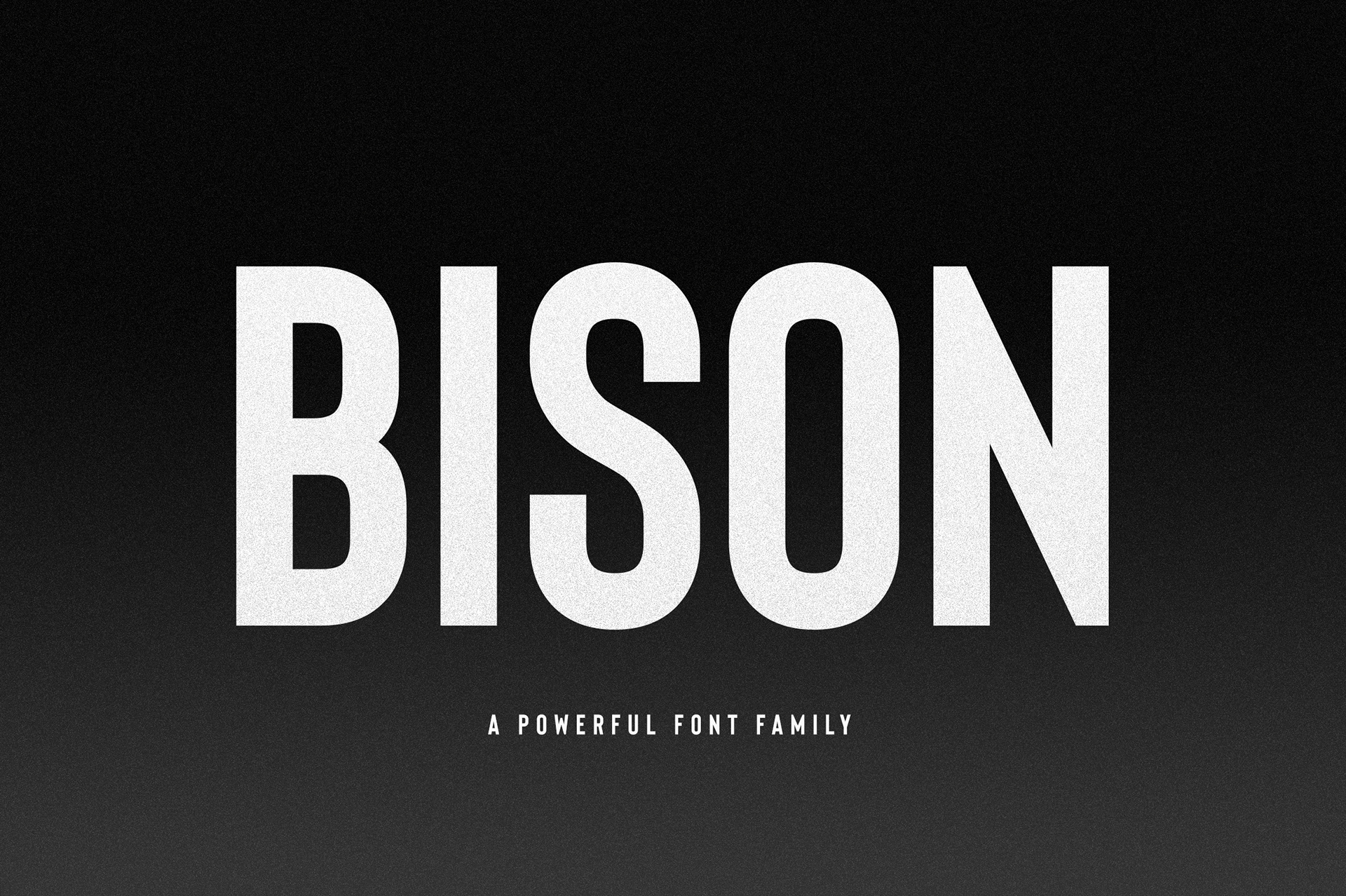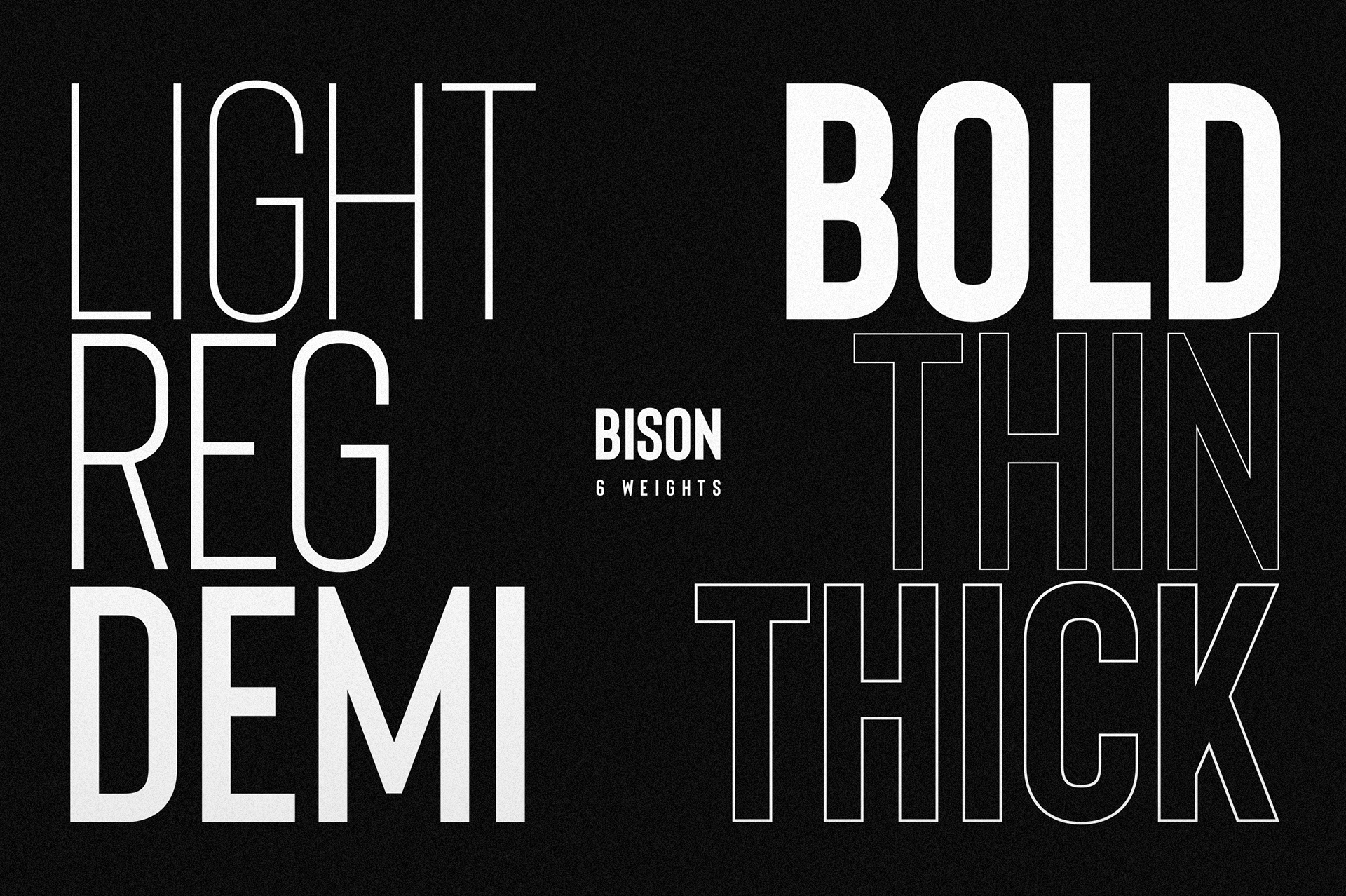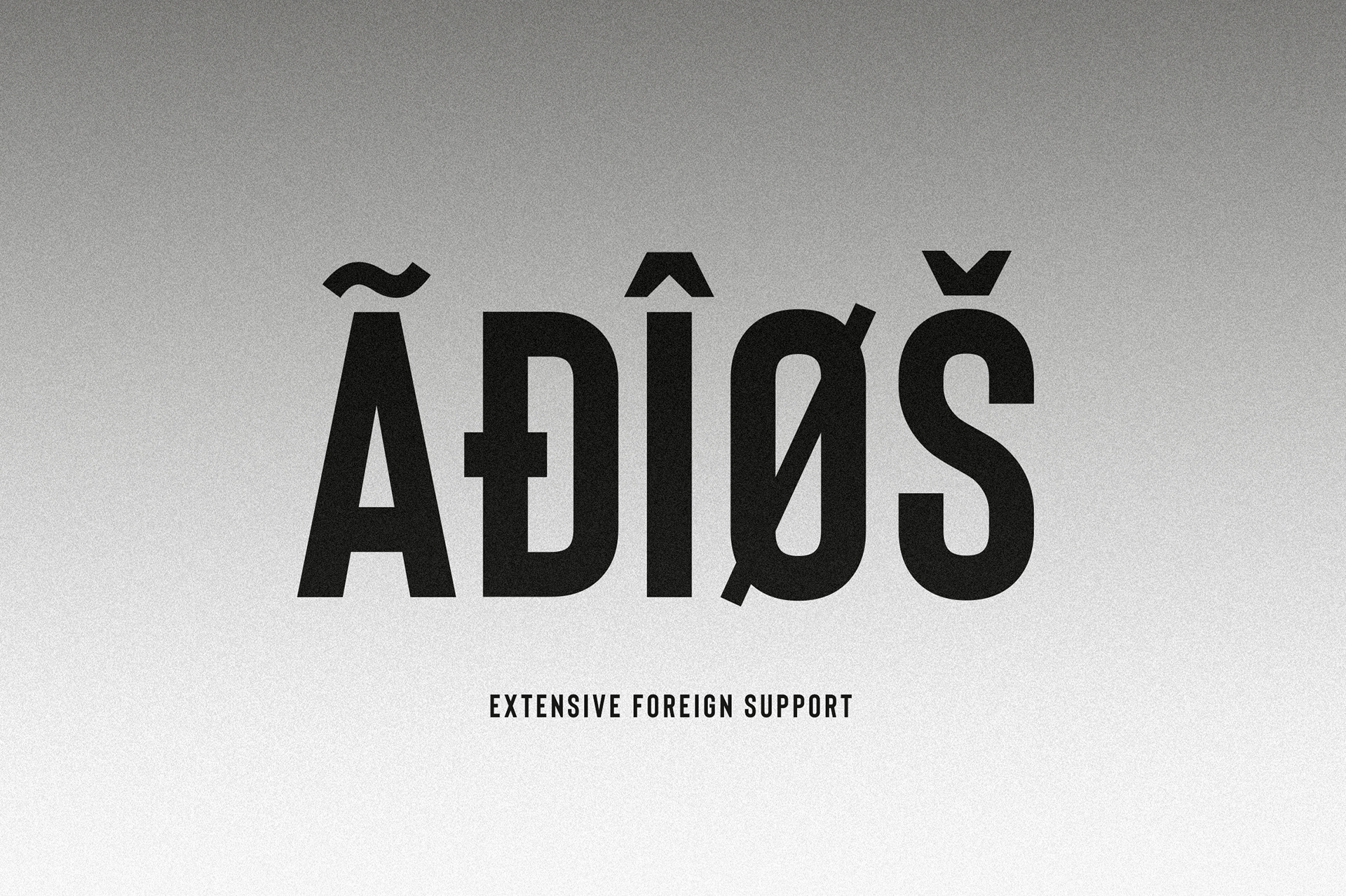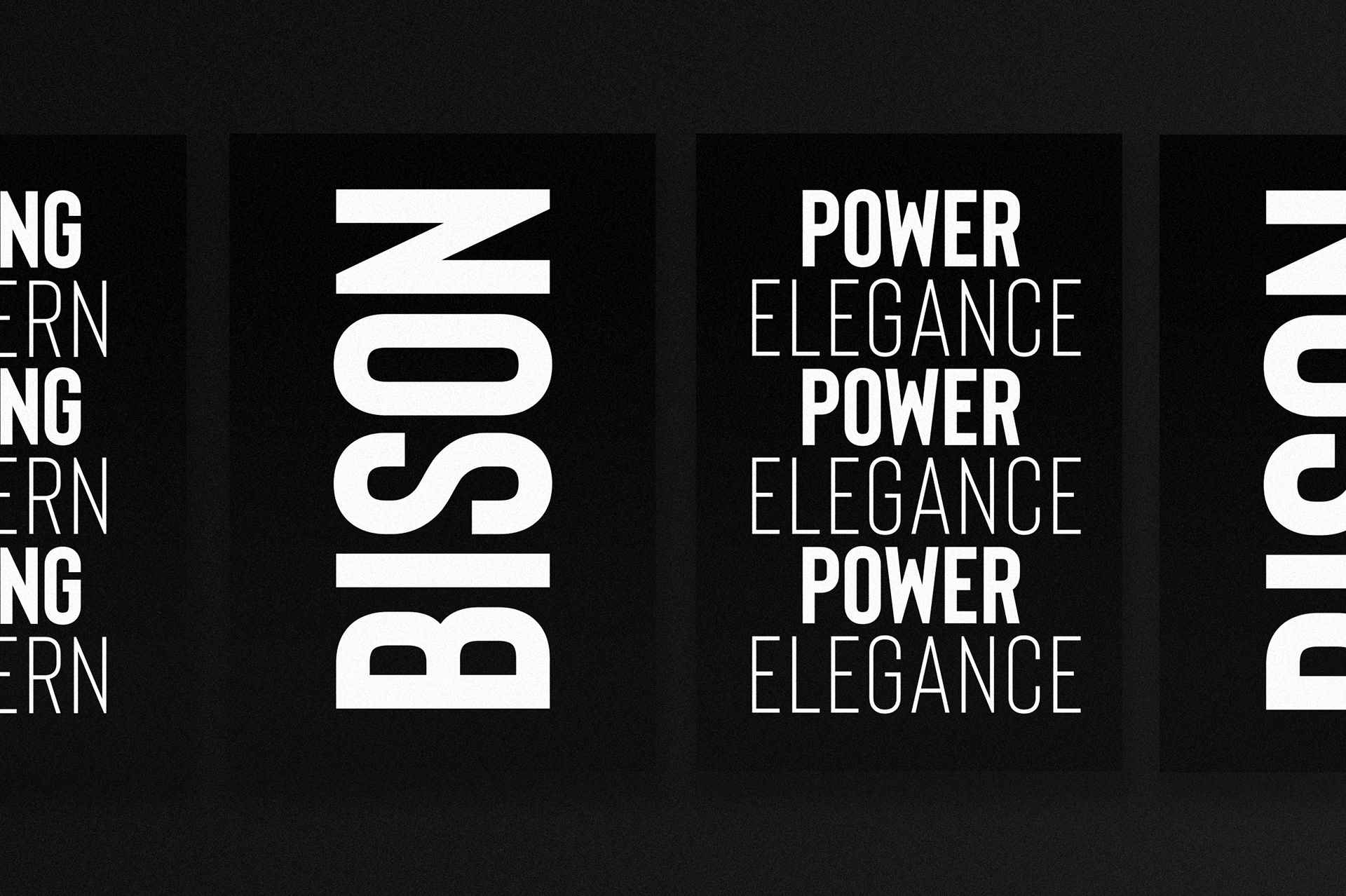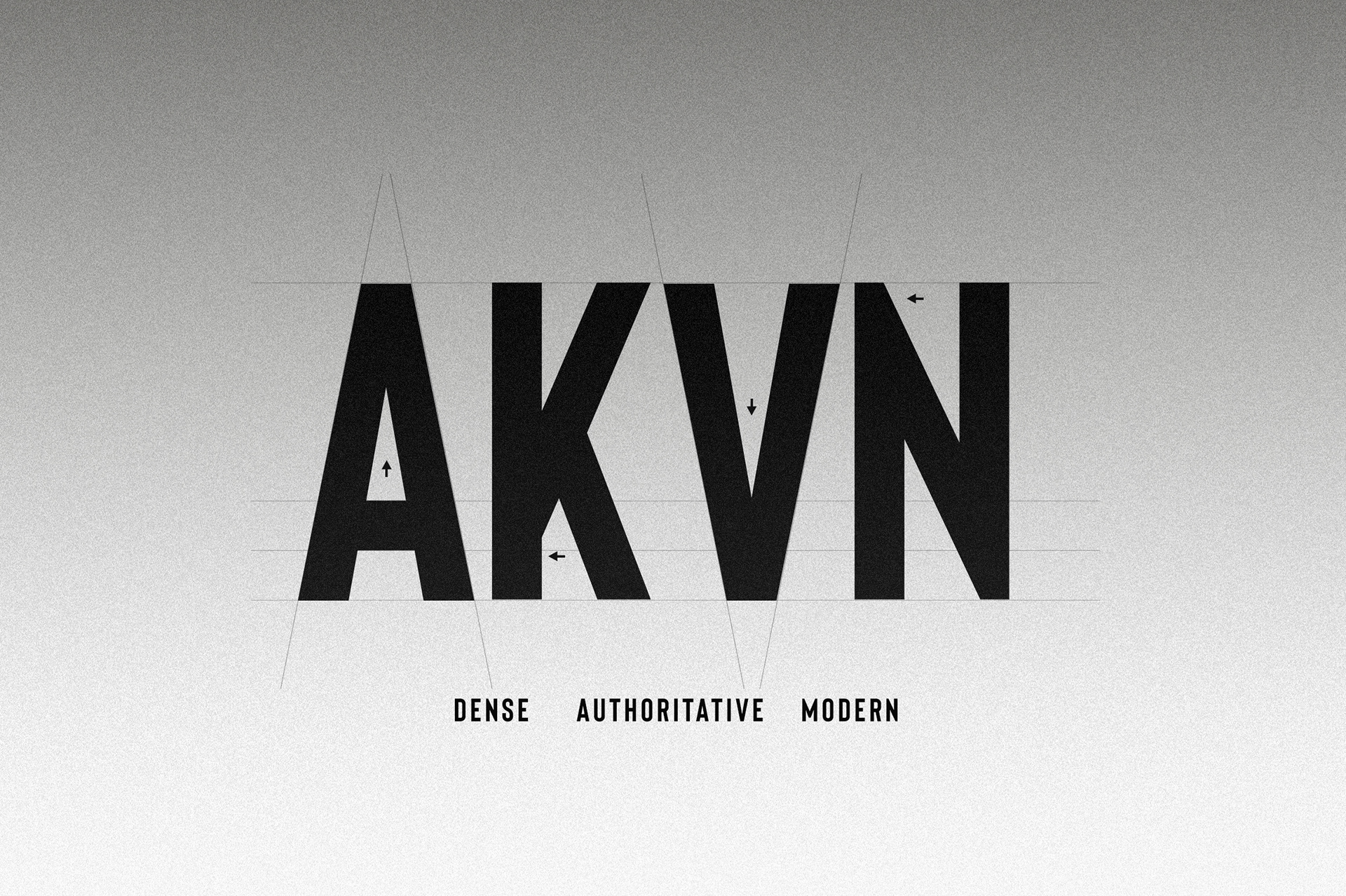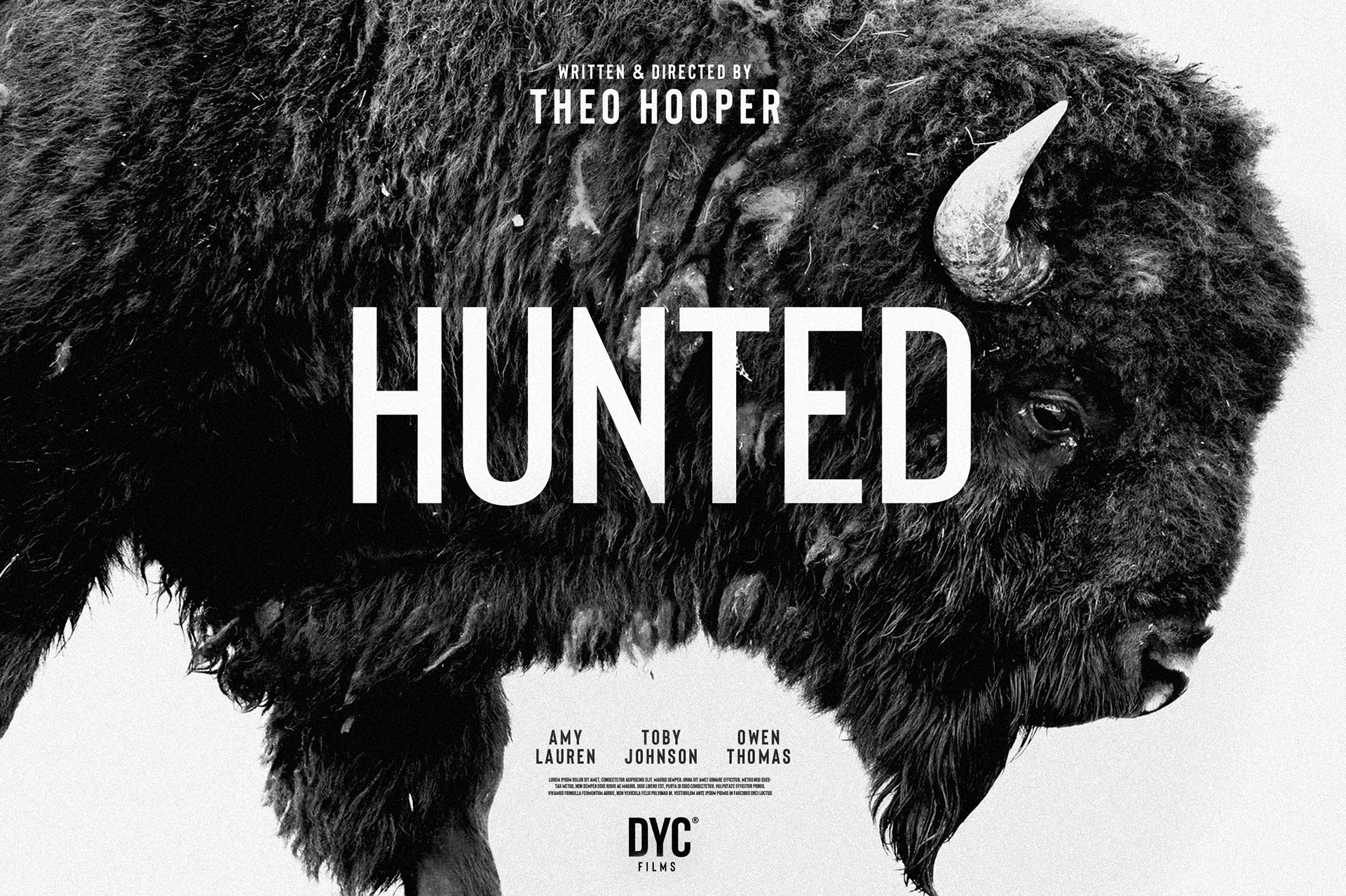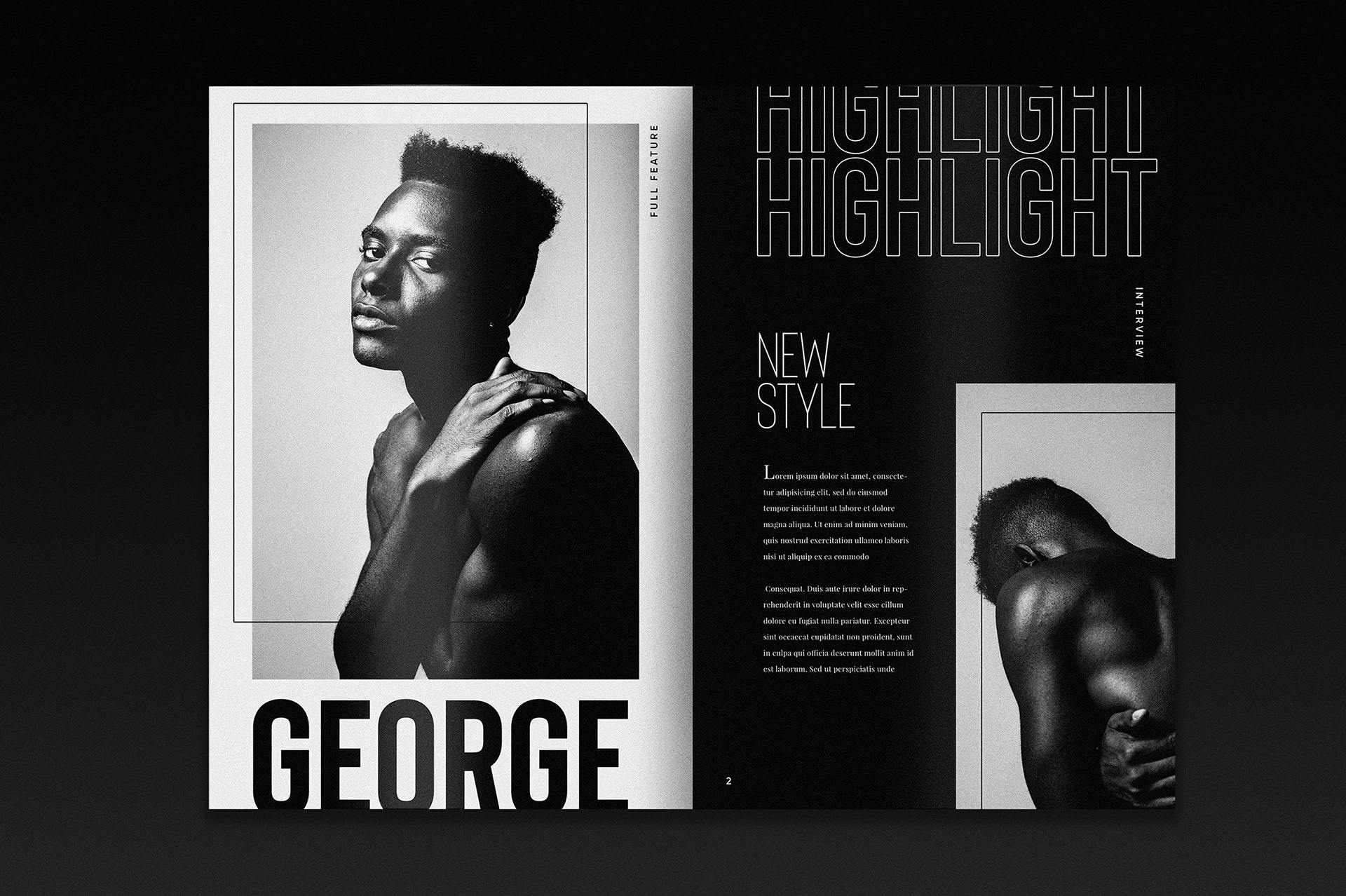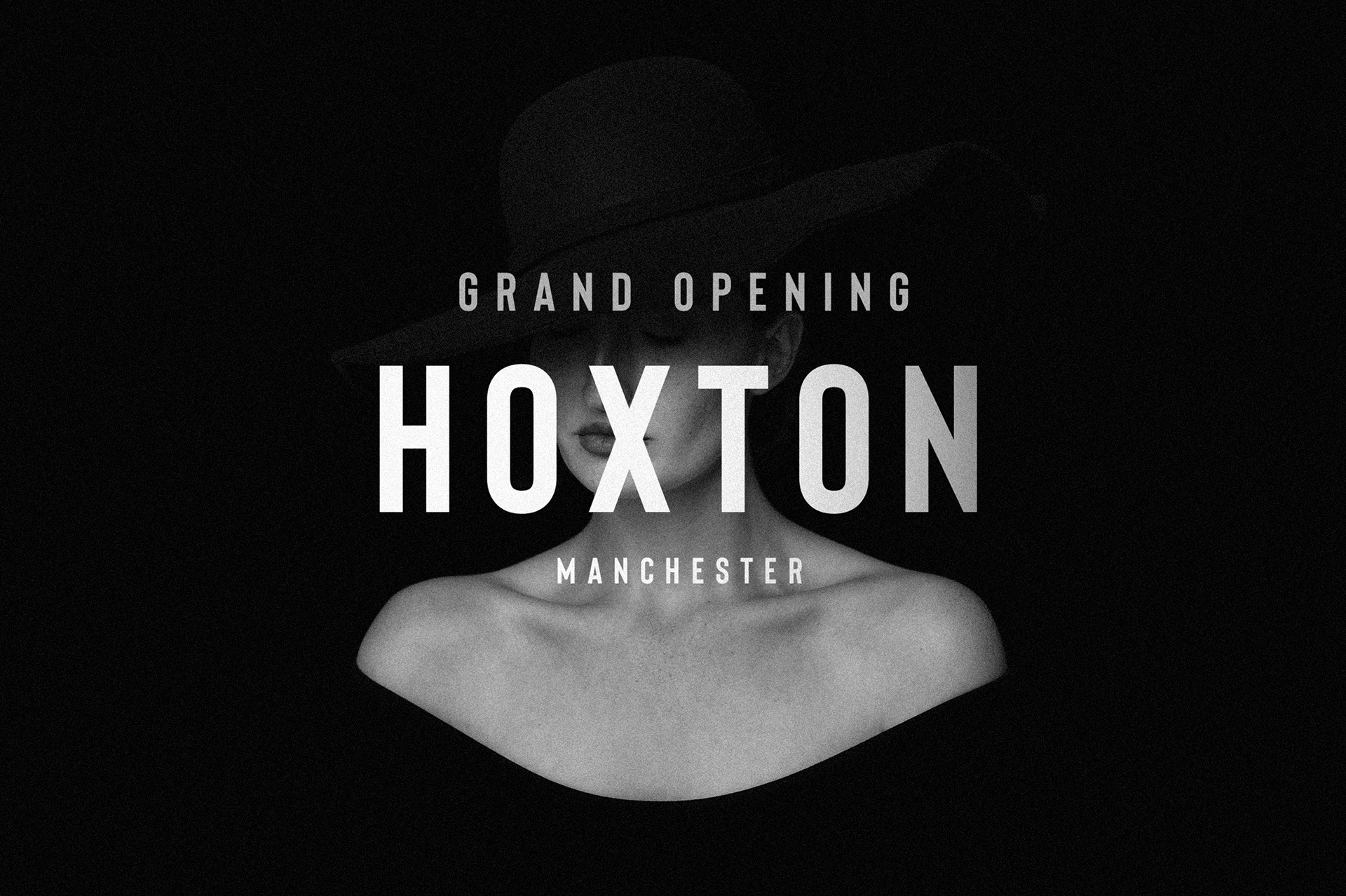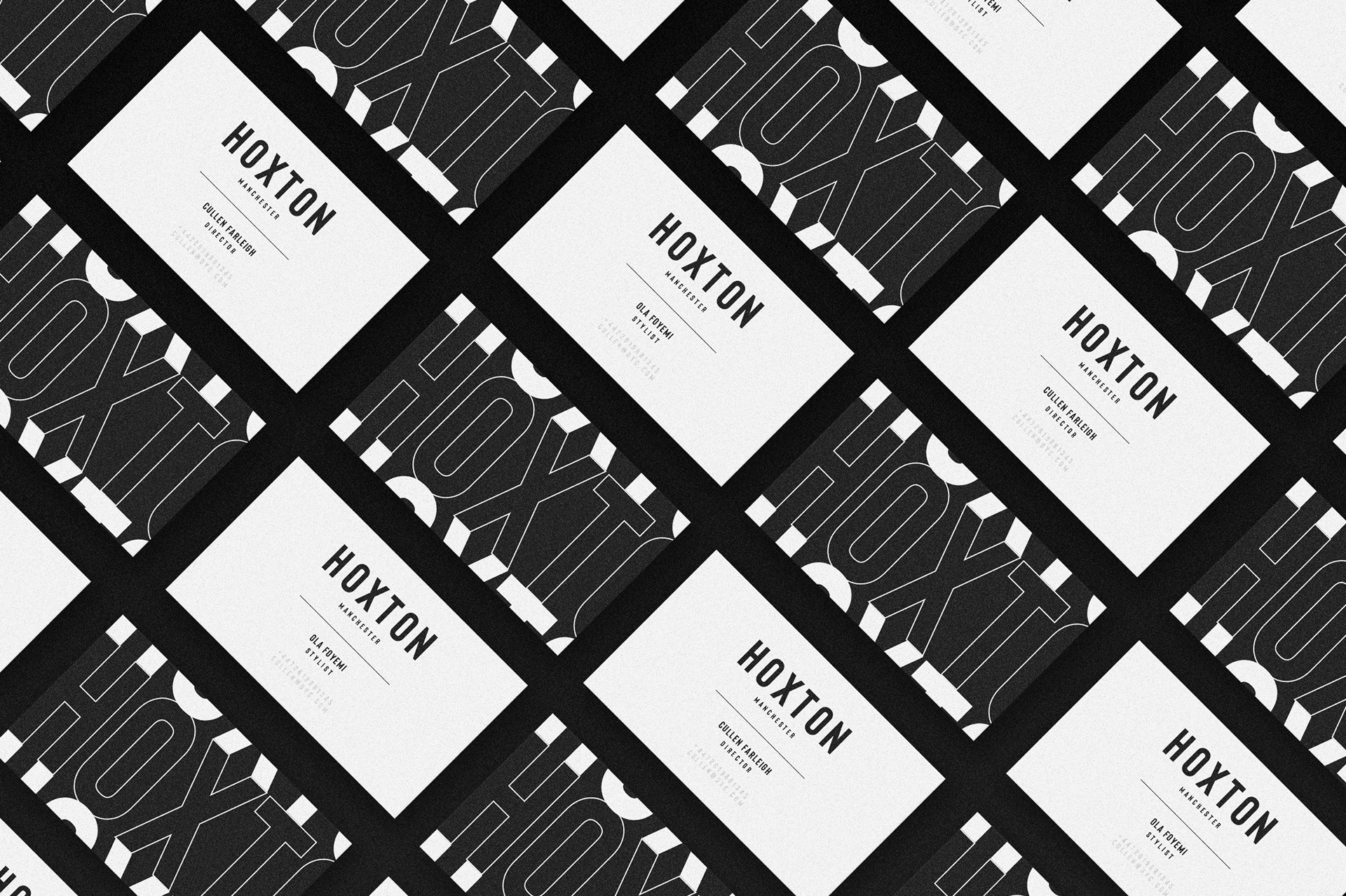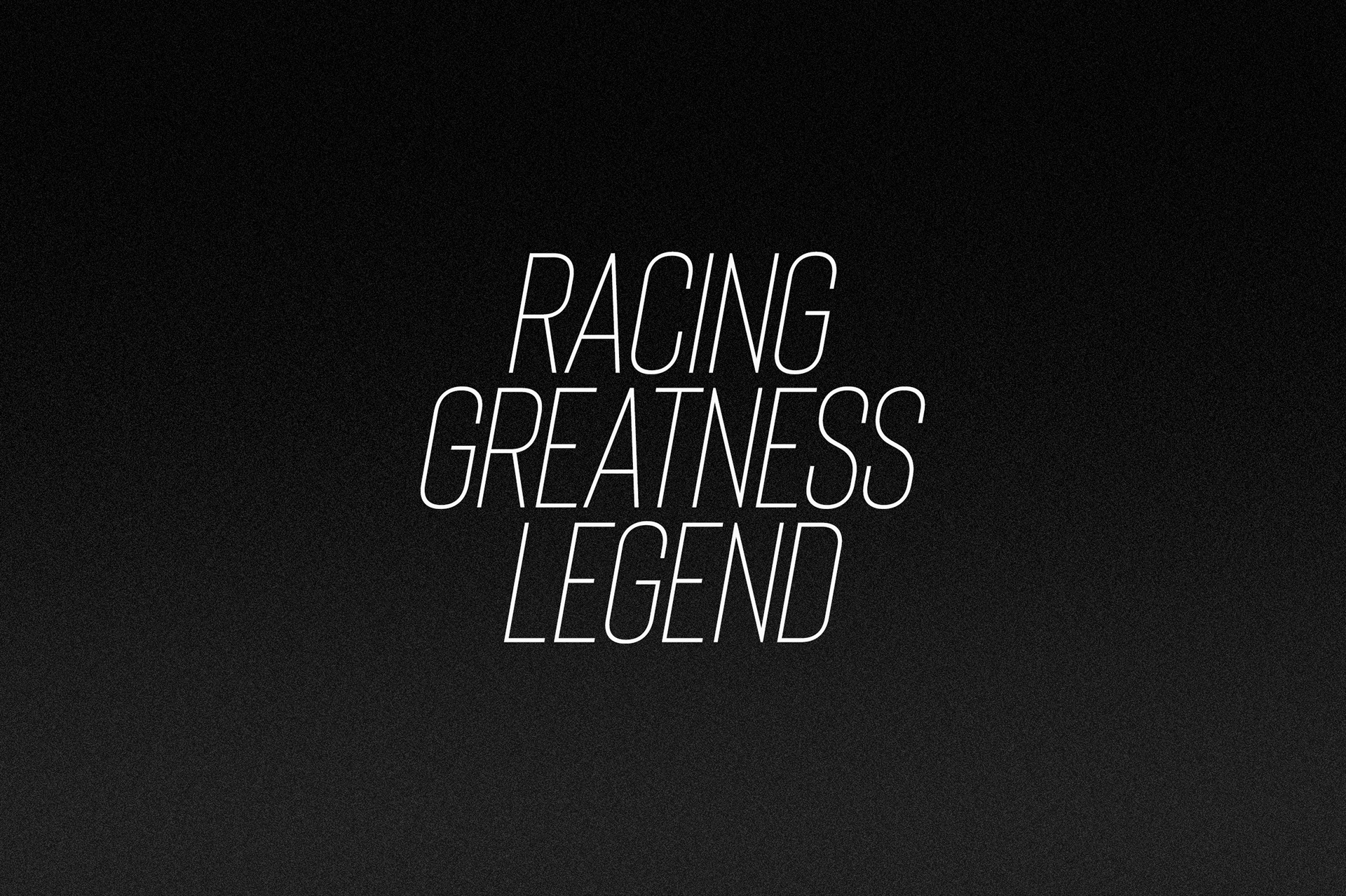
Bison Font Family:
Bison is a strong fontfamily and sophisticated sans serif. Inspired by the animal, it's sturdy uncompromising style is felt through the controlled letterforms and modern touches. A balance of hard lines and smooth curves. Each font in the family can stand on its own, dynamic and authoritative in their own right. - Typeface designed By Ellen Luff - Mockups by Tom Watkins